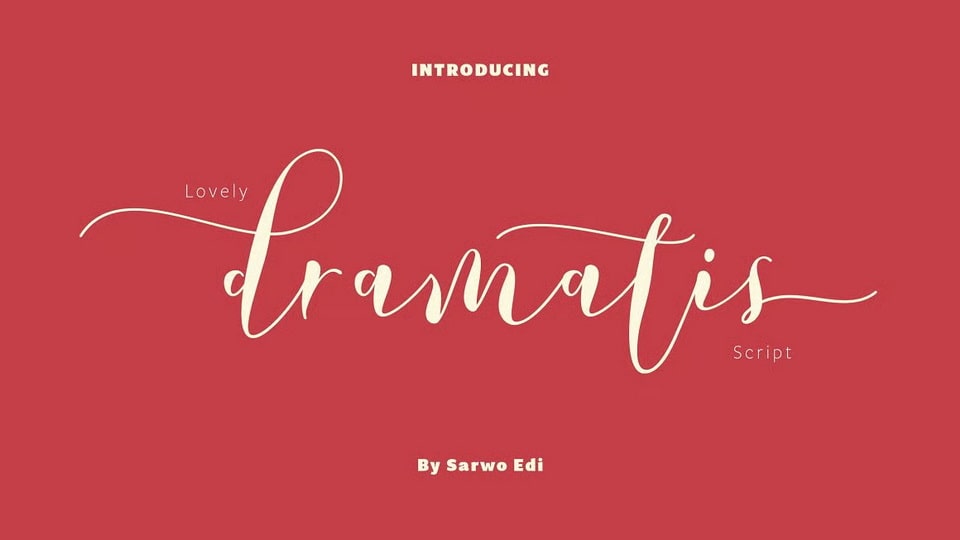
Lovely Dramatis Font › Fontesk – Download Grátis
Download Lovely Dramatis Script font, a contemporary script typeface designed for modern applications. This font offers both ease of use and playfulness, allowing you to experiment with various combinations to achieve stunning results.
Designer: Saffatin Co